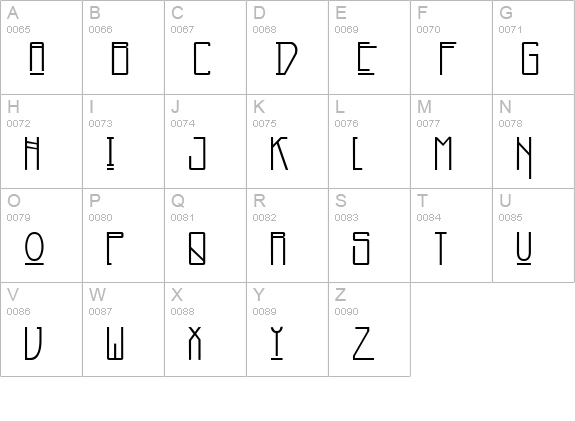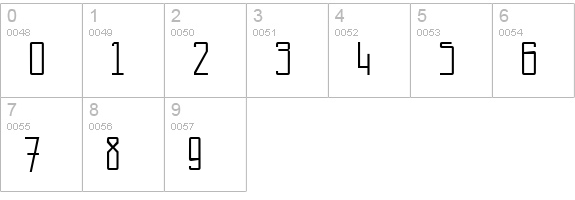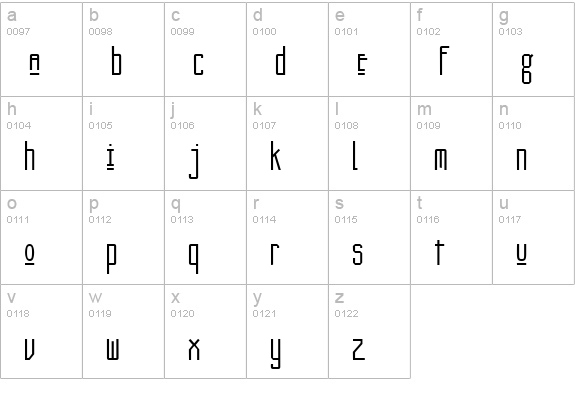
Kashner Font Details
Kashner font is a stunning display font that exudes elegance and sophistication. With its sleek and modern design, it is perfect for adding a touch of class to any project. The clean lines and unique letterforms of Kashner font make it stand out from the crowd, capturing attention and leaving a lasting impression. What sets Kashner font apart is the fact that it is freely available to download at FontsMarket.com. This means that anyone can access this incredible font without any cost. Whether you're a professional designer or a casual user, the accessibility of Kashner font allows you to elevate your designs without breaking the bank. The versatility of Kashner font is also worth mentioning. Its bold and distinct characters make it ideal for headlines, logo designs, branding materials, posters, and much more. The wide range of glyphs and ligatures included in the font also allows for endless creative possibilities, ensuring that your designs will always stand out. The quality of Kashner font is exceptional, making it a must-have for anyone looking to add a touch of luxury to their projects. Its smooth curves and precise details create a captivating visual experience that is sure to impress. Whether used for print or digital media, Kashner font delivers impeccable results. So why wait? Download Kashner font today from FontsMarket.com and unlock the power of this beautiful font. Embrace the freedom to create stunning designs that leave a lasting impact. With Kashner font, the possibilities are endless, and the best part is, it won't cost you a dime.